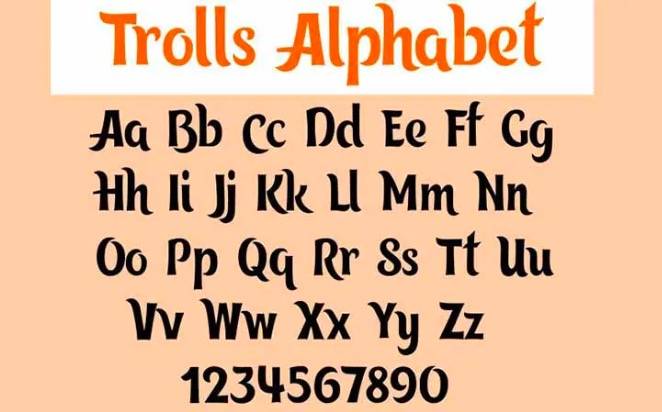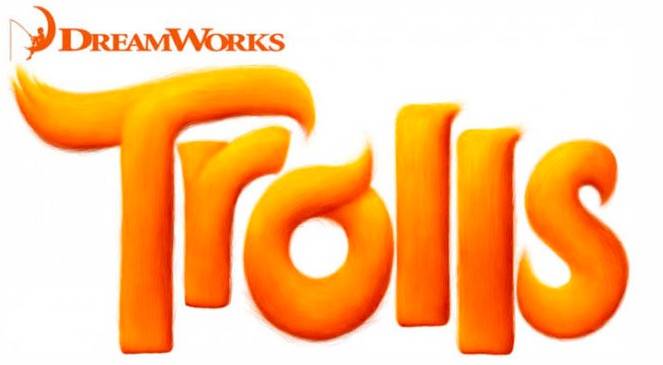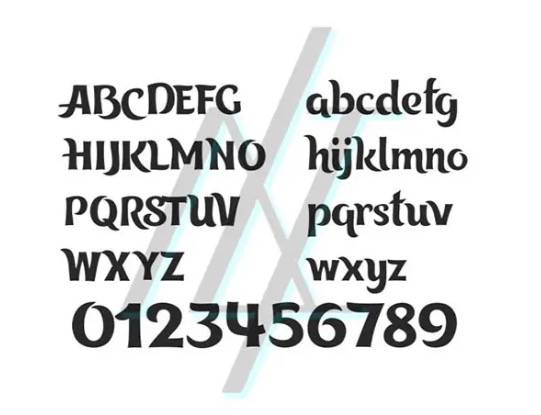
About Trolls Font. Hello guys, today Fontsio.Com wanna show you a movie font family name Trolls Font. I think that the Tanga is the main typeface that was used on the title of the Trolls’ poster. The font used for the logo of the Trolls movie is very similar to Tanga Font. The Trolls is basically an American computer-animated romantic & comedy film which was firstly released on 8 October 2016.
Trolls font family has got too much popularity after its release. At the same time demand for this suitable font family also increase. Jonathan Lopez took the charge for designing this font for the first time and releases it during 2016. This smart font family contains many Glyph and Units per Em.
Trolls Movie Font
Trolls font contains more than 900 glyphs with a wide range of languages – extended Latin and Cyrillic character support as well as Italian localization features.
With Trolls font. As the main purpose behind designing that typeface was to apply it for movies and games design. Moreover, you can use this splendid font for composing a book, print wedding, invitation or business cards, banners designs, brochure layout, posters designs, movies titling and keep your client satisfied all the time.